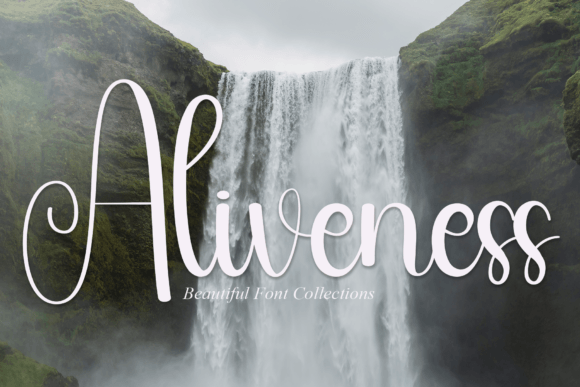
The Sweet Spot: Discovering Aliveness Font
I’ll never forget the time I was working on a wedding invitation project, and my client asked for a font that was “fun, yet elegant.” I scoured the internet, tried out dozens of fonts, but nothing seemed quite right. That was until I stumbled upon Aliveness Font. This sweet and friendly handwritten font won me over with its cute and fun vibe, and I knew it was perfect for the job. In this article, I’ll share my experience with Aliveness Font, its features, and how to make the most of it in your designs.
• ✨ Sweet and Friendly Vibe: Aliveness Font has a warm and approachable feel that’s perfect for wedding invitations, birthday cards, or any design that needs a personal touch.
• ✅ Highly Readable: The font is clear and easy to read, even at small sizes, making it ideal for body text or captions.
• 🎉 Fun and Playful: Aliveness Font has a playful energy that’s perfect for designs that need a bit of whimsy.
While Aliveness Font is an excellent choice for many designs, there are a few things to keep in mind:
• 🤔 Limited Formality: Aliveness Font is a highly informal font, so it may not be the best choice for very formal or corporate designs.
• ⚠️ Glyph Limitations: As with any font, there may be limitations to the glyphs and special characters available. Be sure to check the font’s capabilities before committing to a project.
A Practical Guide: Using Aliveness Font in Your Designs
The Designer Inspiration Behind Aliveness Font
Aliveness Font was designed with the intention of creating a friendly and approachable font that captures the spirit of handwriting. The designer aimed to create a font that feels like it was written with love and care, making it perfect for designs that need a personal touch.
Q: What is Aliveness Font best used for?
A: Aliveness Font is ideal for designs that need a friendly and approachable feel, such as wedding invitations, birthday cards, or social media graphics.
Q: Is Aliveness Font suitable for body text?
A: Yes, Aliveness Font is highly readable and can be used for body text, but it’s best used in combination with other fonts for headings and titles.
Q: Is Aliveness Font available in multiple languages?
A: The availability of Aliveness Font in multiple languages depends on the font’s character set. Be sure to check the font’s capabilities before committing to a project.